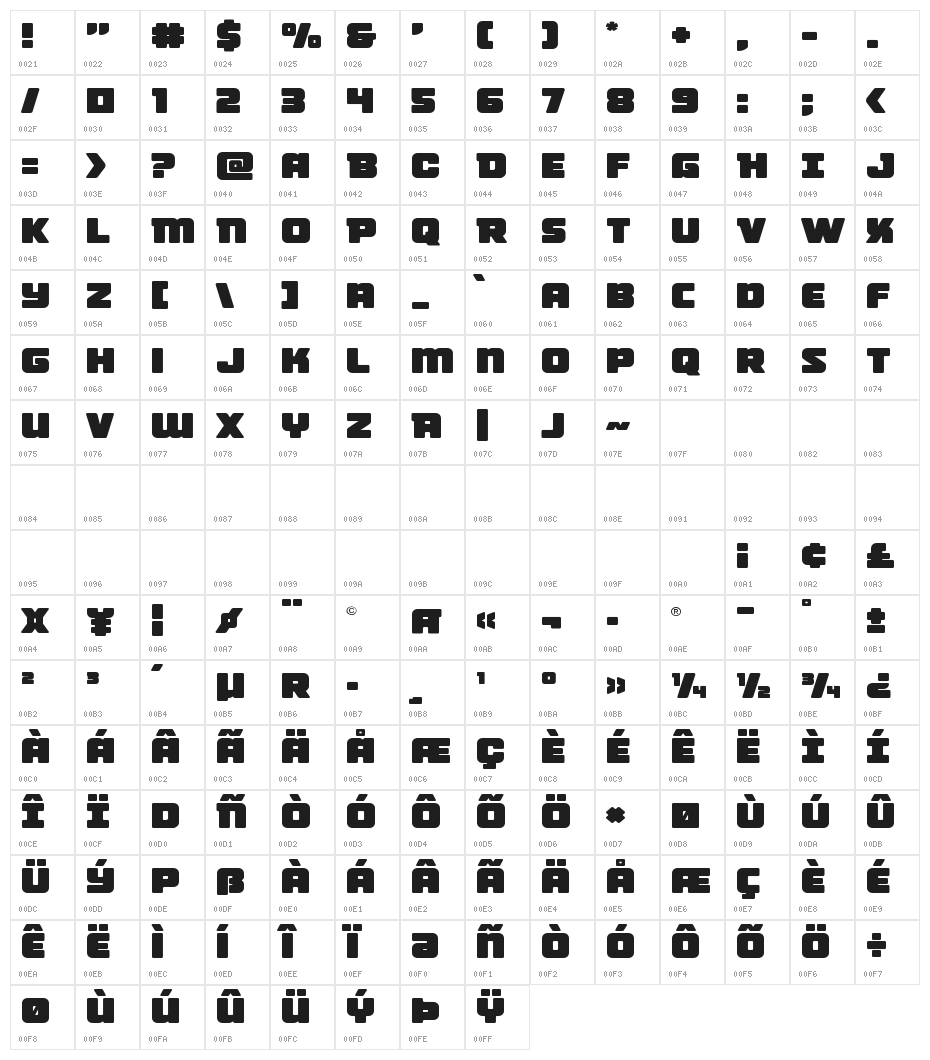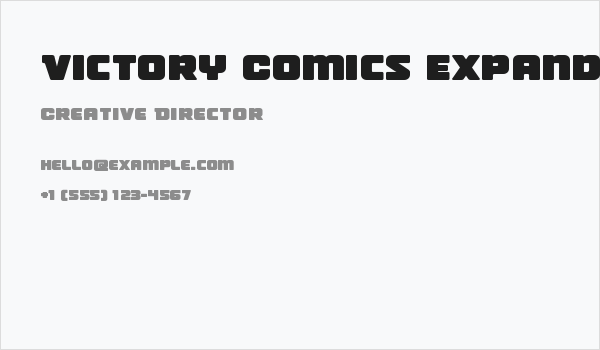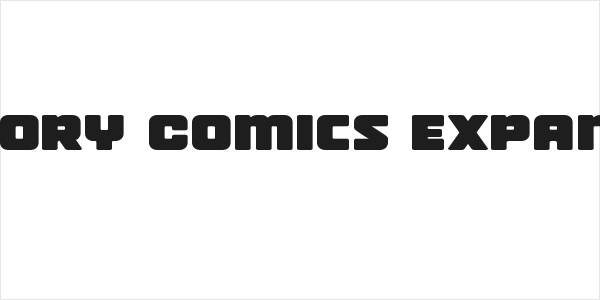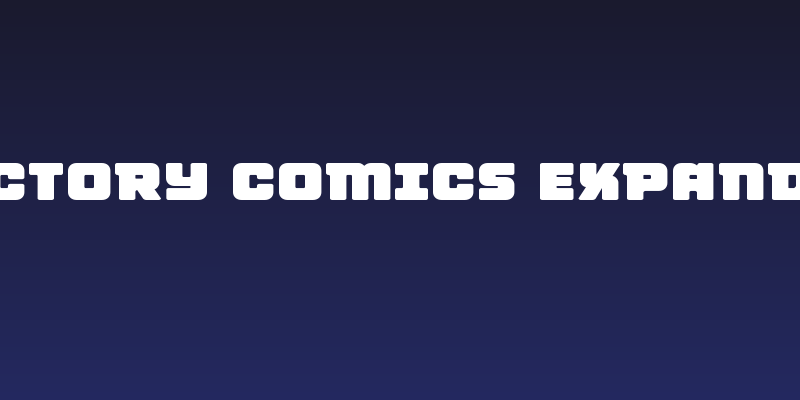
Victory Comics Expanded Font
Victory Comics Expanded Description
This font features a bold, playful design with thick, rounded edges that give it a comic-like appearance. The characters are uniformly wide, creating a strong and impactful visual presence. The uppercase and lowercase letters maintain a consistent style, with the lowercase mirroring the uppercase in form. Numbers and special characters are equally bold and rounded, ensuring a cohesive look across all elements. The font's design is reminiscent of classic comic book lettering, making it ideal for projects that require a fun and engaging aesthetic.
| Overall Style | Playful, Comic |
| Proposed Projects | Ideal for comic books, children's books, playful branding, posters, and video game graphics. |